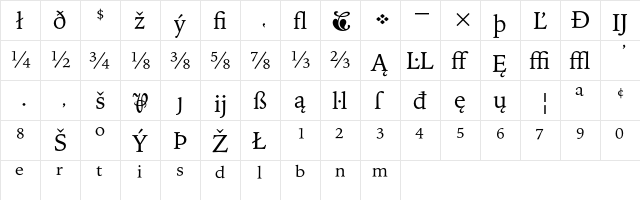
Bitstream Iowan Old Style Extension
Design Context for Bitstream Iowan Old Style Typeface
Bitstream Iowan Old Style offers clean, dependable letterforms without strong stylistic allegiance, making it a practical choice for designers who need flexibility.